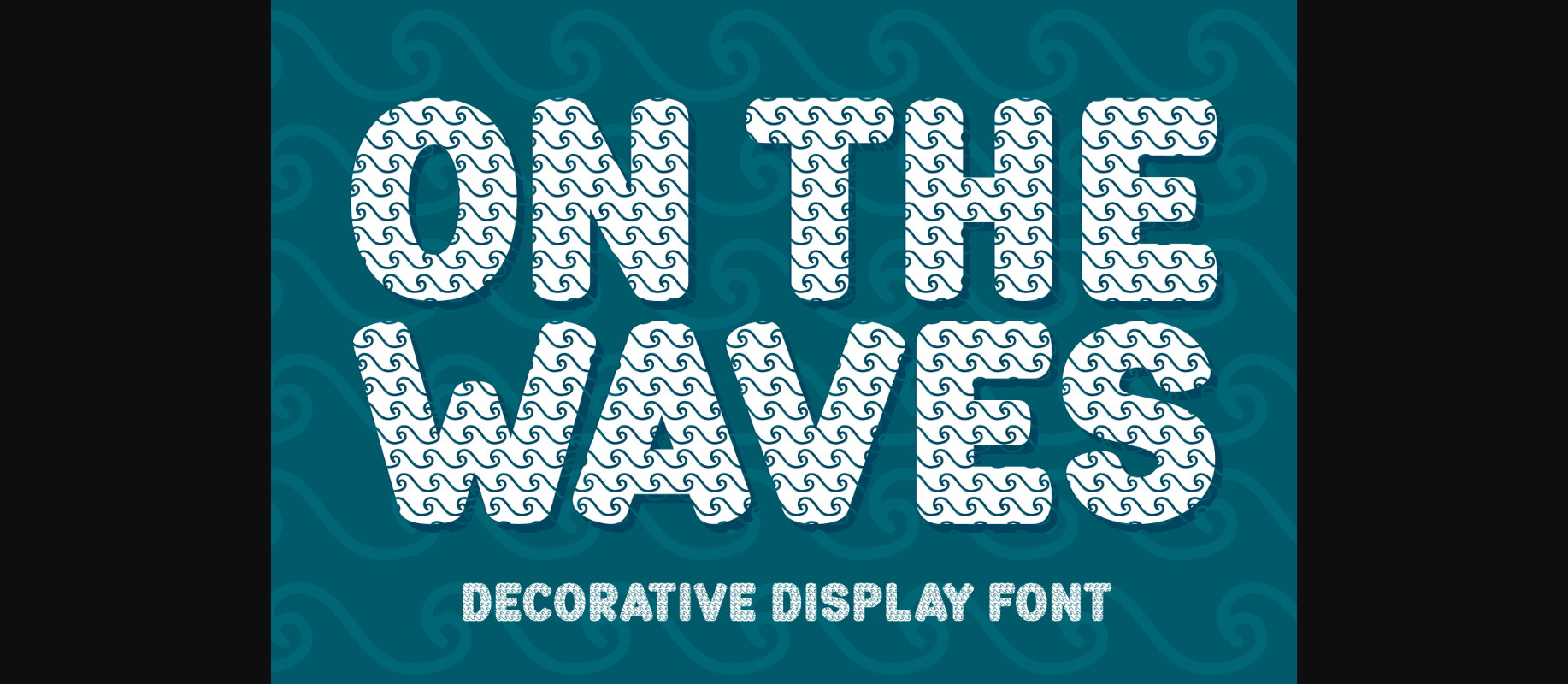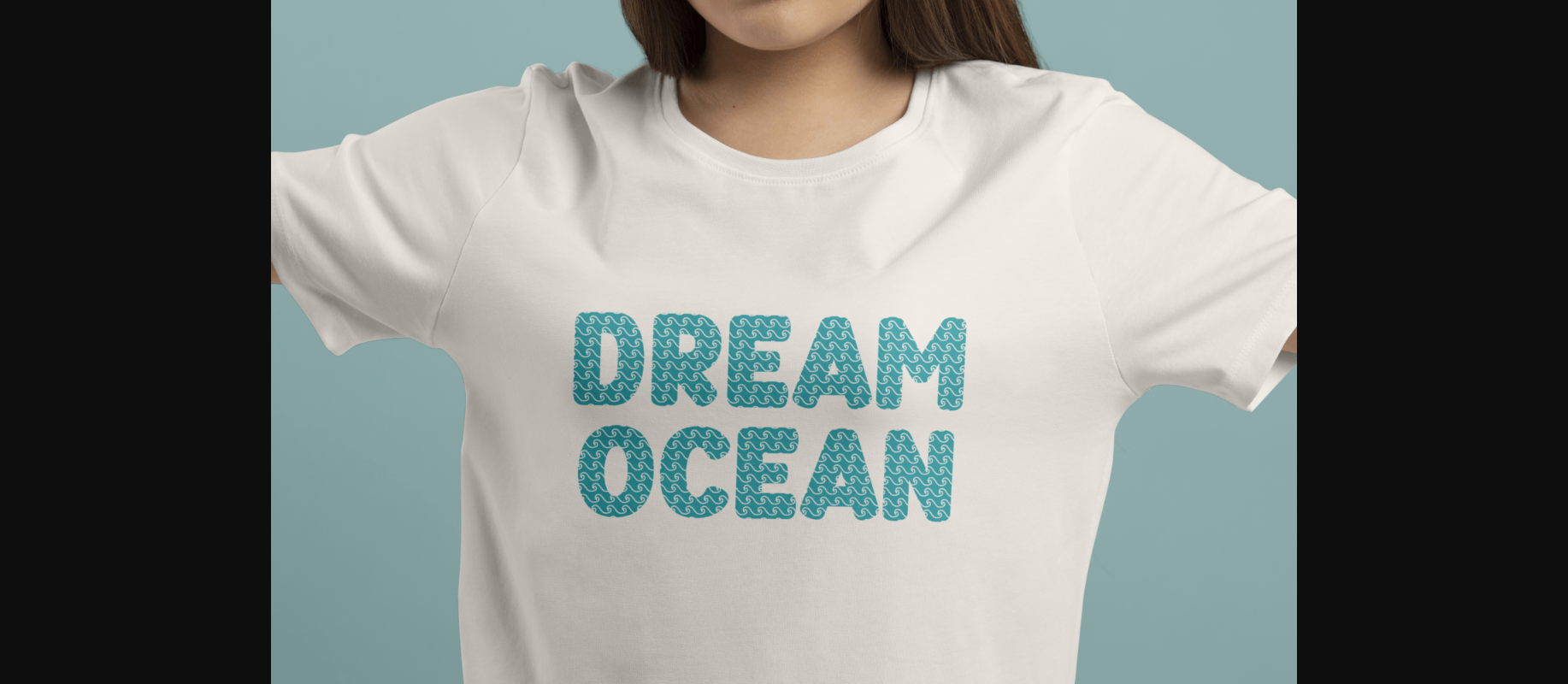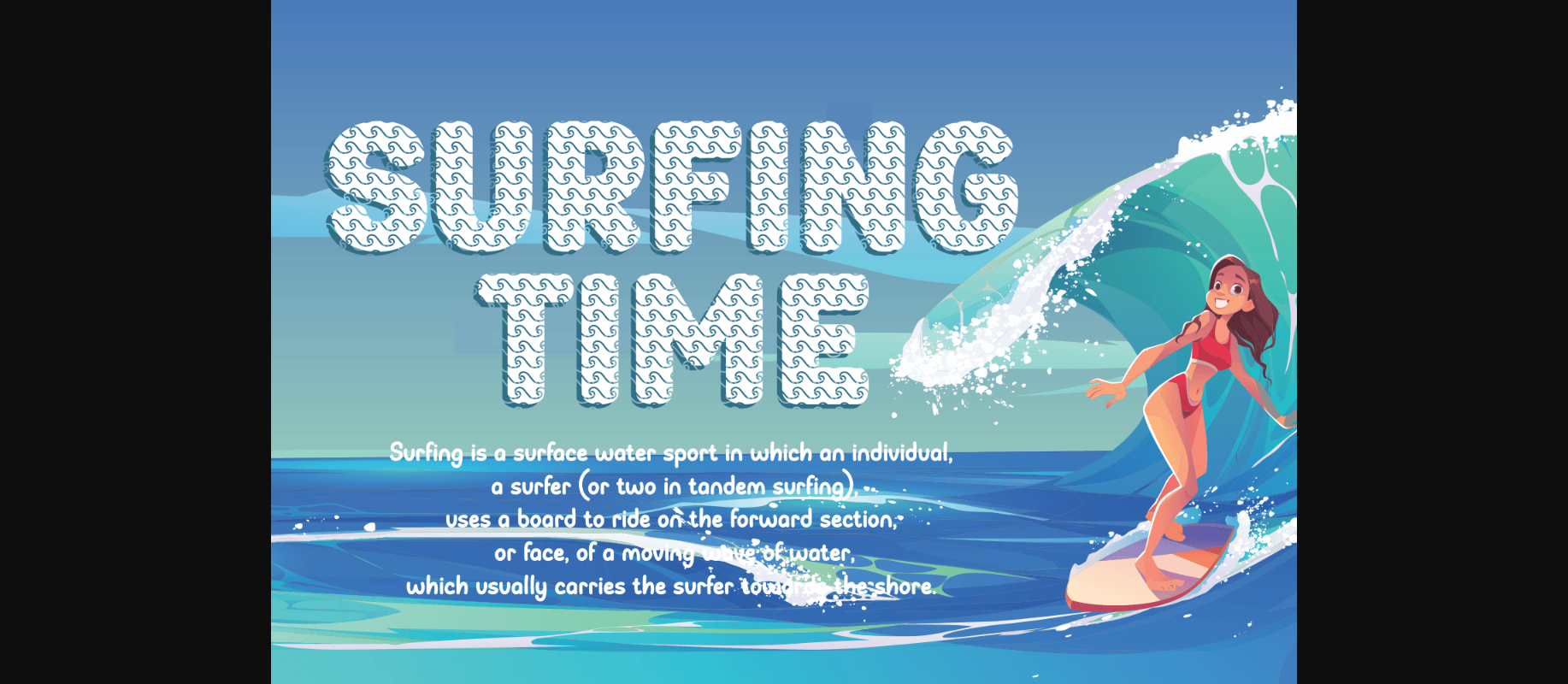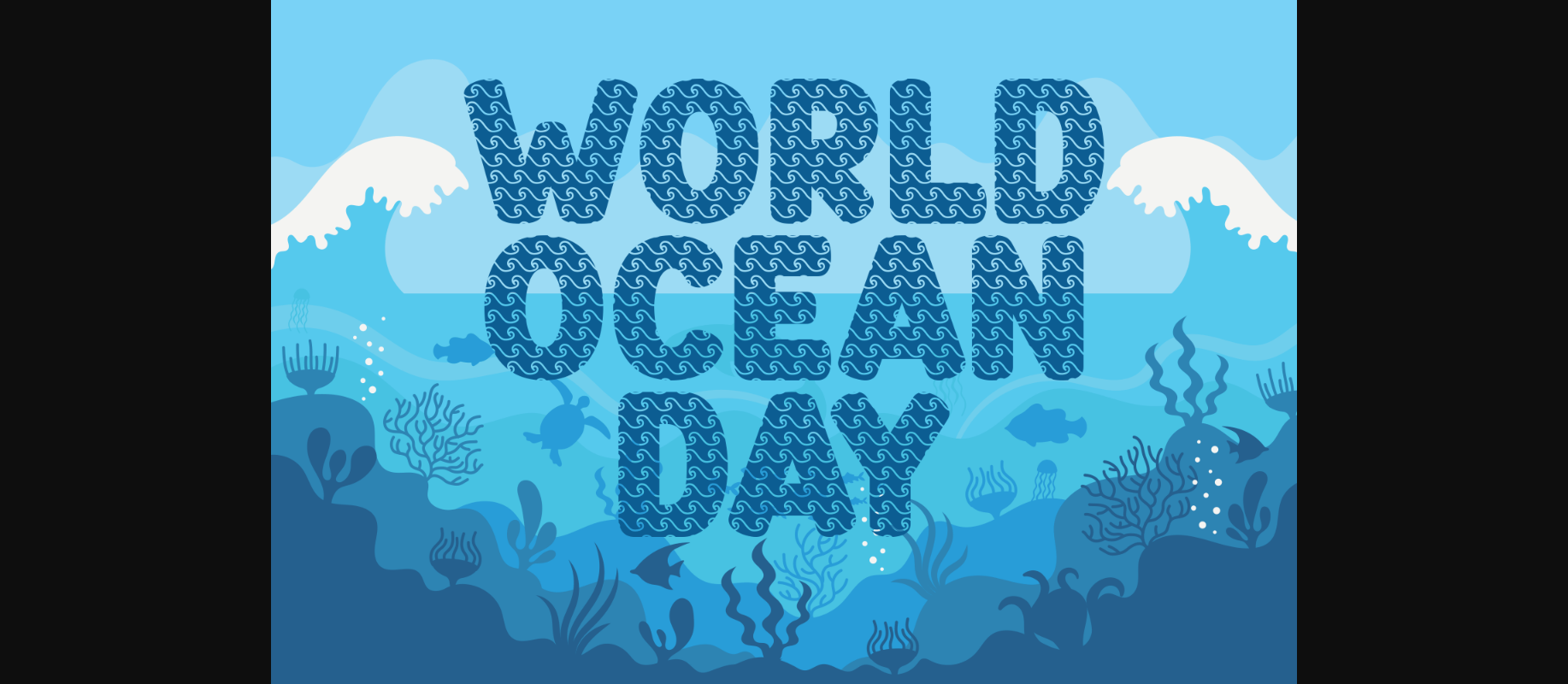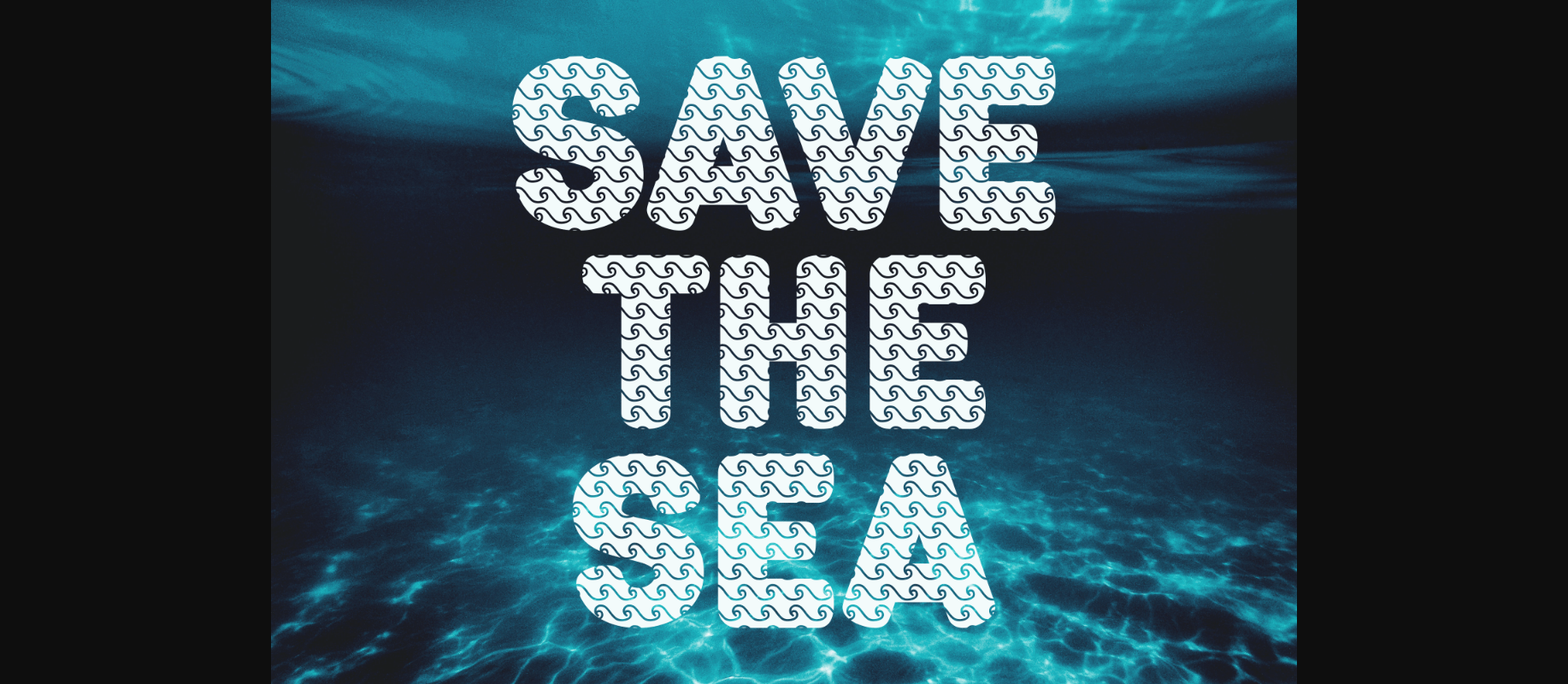
“On The Waves” is a gorgeous decorative font filled with wave accents and summer vibes. Its chubby decorative letters will perfectly complement any sea or summer-themed creation!